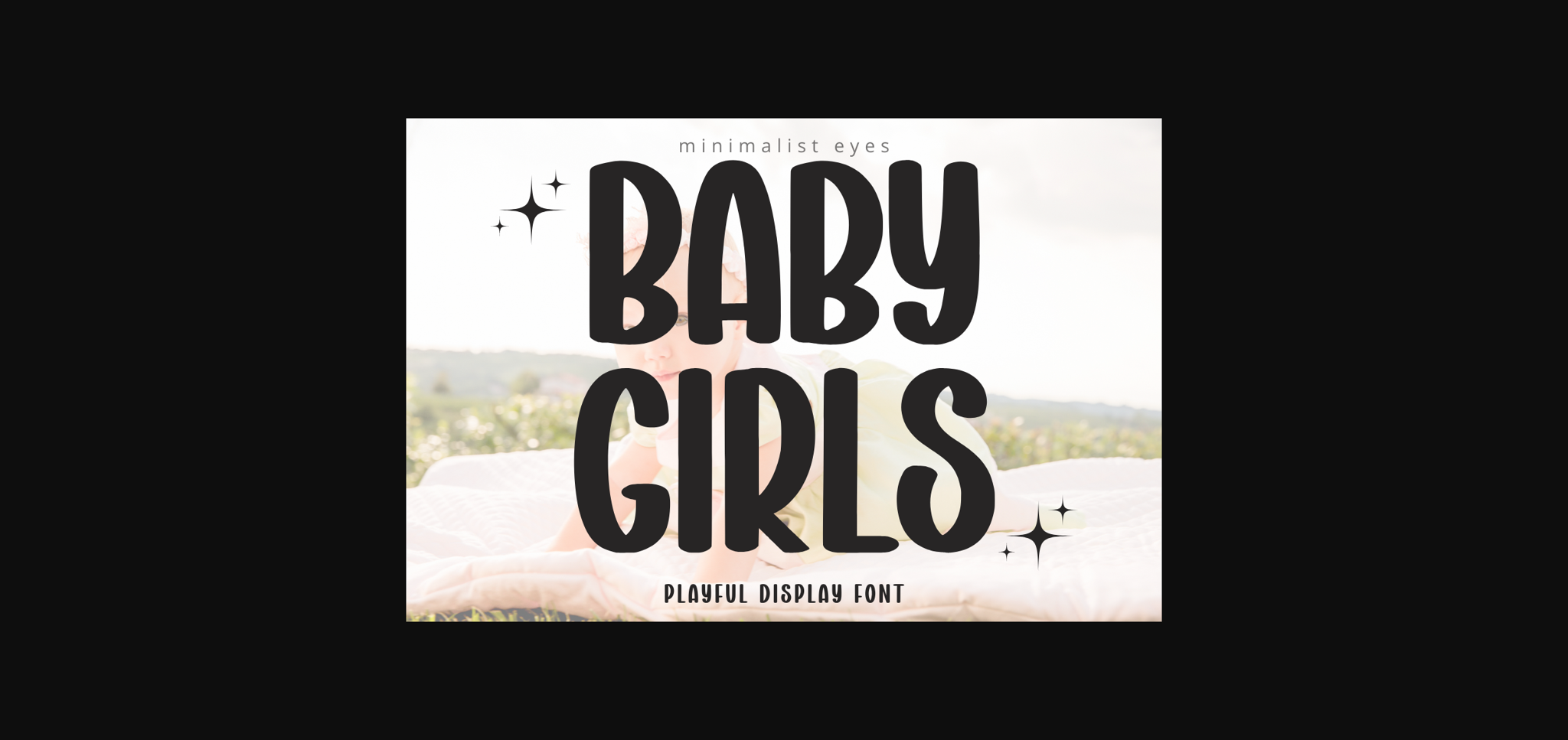
About Baby Girls Font
Baby Girls is a fun sans-serif font full of charm and whimsy. Perfect for t-shirts, pillows, children’s books, party invitations, or any design project that seeks to exude warmth and fun with a feminine touch.